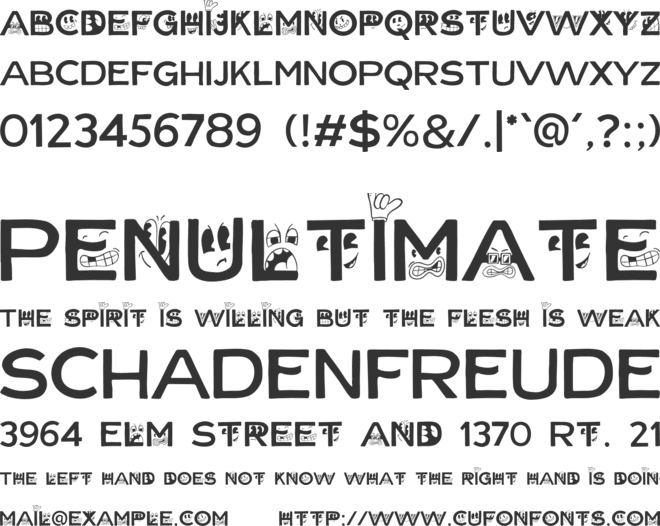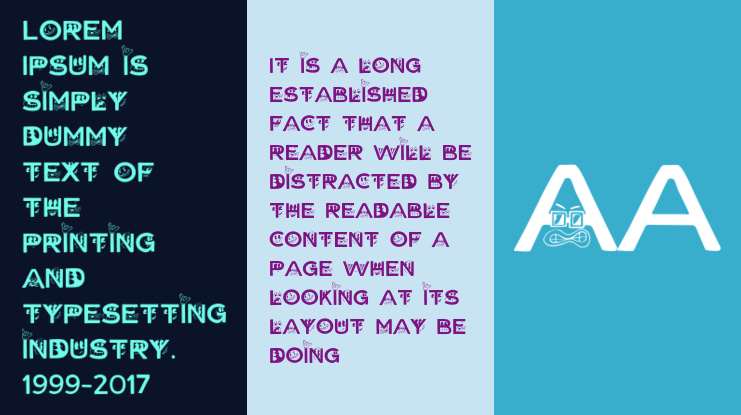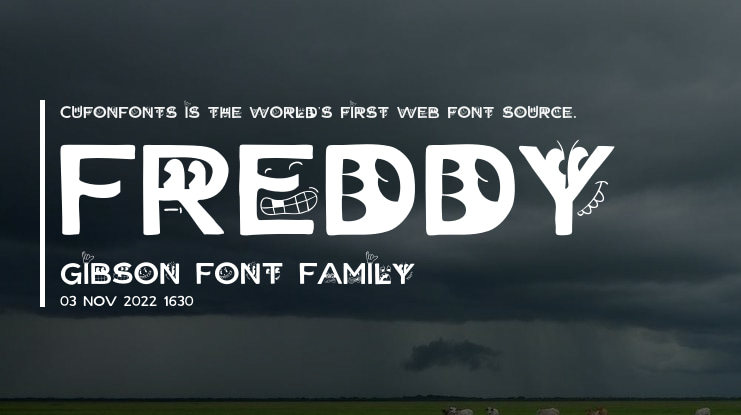
Meet Freddy Gibson, a handmade sans serif font crafted with a
natural, organic touch. Every stroke is carefully drawn by hand, giving
the typeface an authentic and approachable personality. perfect for
branding, packaging, and creative displays.